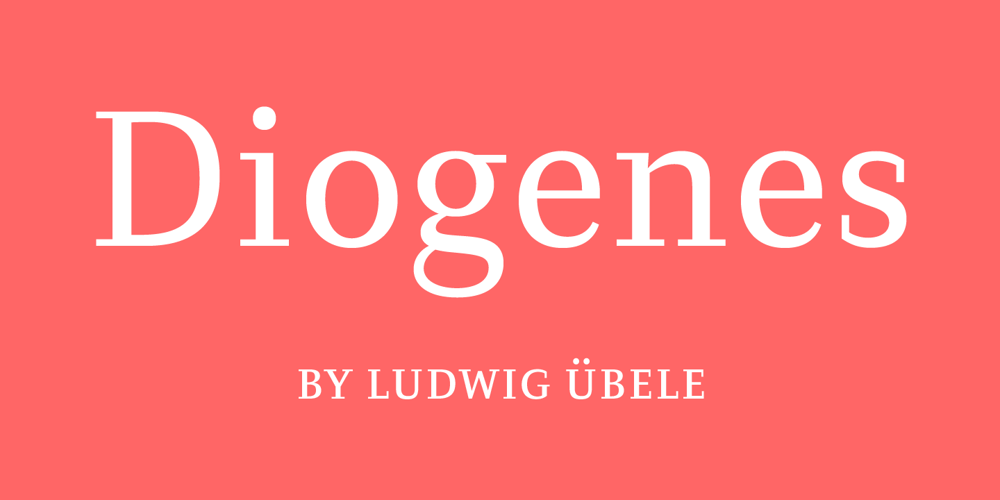
Diogenes
Diogenes font
Diogenes Font Family was designed by Ludwig Übele and published by Ludwig Type. Diogenes contains 18 styles and family package options. Diogenes is an elegant and crisp text typeface. While the skeletons of the individual characters are distinct and strong, the serifs are fine and sharp. This is especially true for the capitals with their comparatively strong horizontal strokes. The graceful appearance of Diogenes makes it an ideal choice for books, newspapers, and magazines, both at small text sizes and display sizes. See also this minisite.